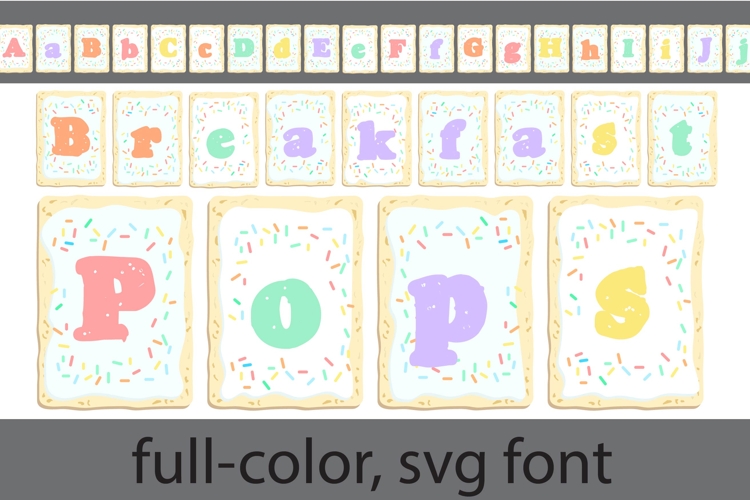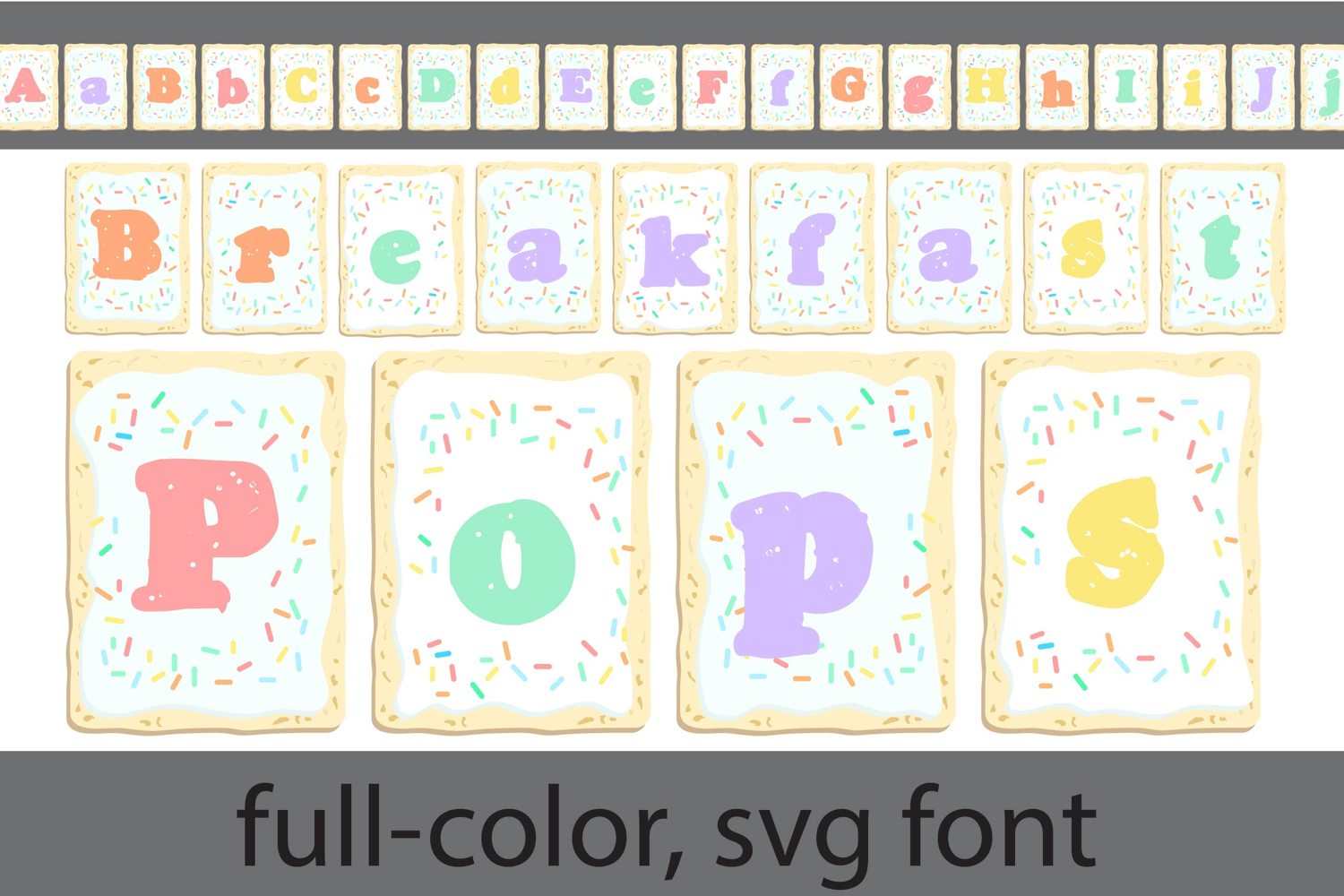
Breakfast Pops Color Font
This full-color font features a pastel rainbow of colors on toaster pastries. There is an alt case of additional colors of each letter that you can access through your system or Silhouette's glyph map.